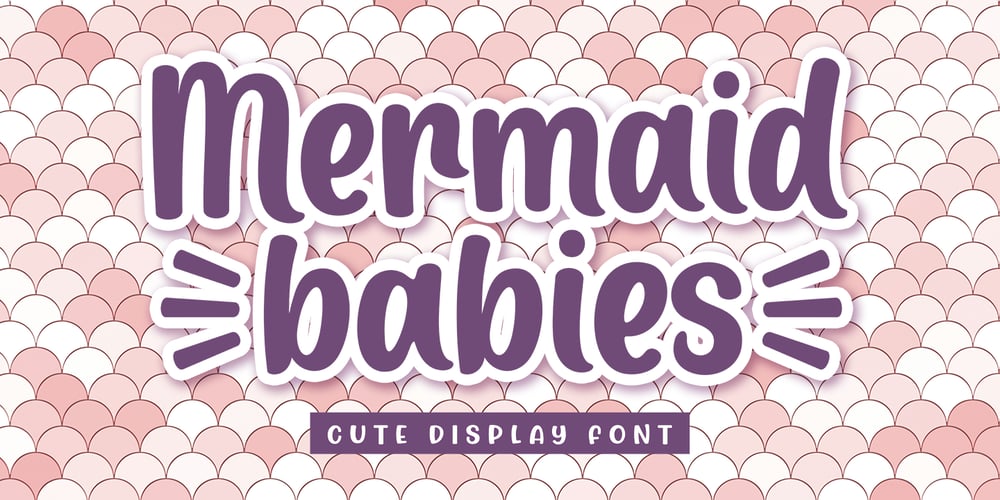
Mermaid Babies Font Family was designed by Rangga Subekti and published by Subectype. Mermaid Babies contains 1 styles and family package options. Mermaid Babies is a fun, jolly and incredibly charming display font. It embodies playfulness and authenticity and is the perfect choice for any children activity or school project.What’s Included :- Multilingual SupportI hope you enjoy this font. If you have any questions please don’t hesitate to drop me a message :)Thank You, Subectype